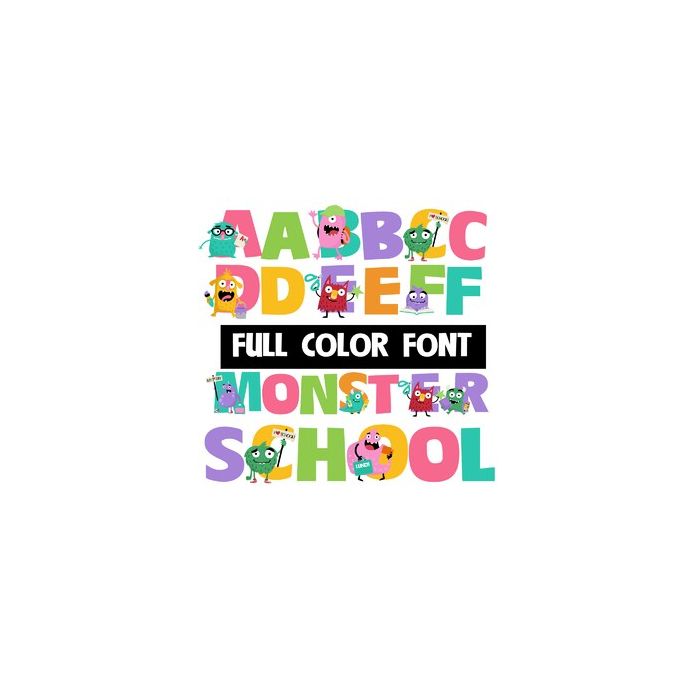
This brightly colored full-color font features blocky letters and a monsters going to school on the uppercase. This font works best for titles, displays, posters and more. Please note color fonts will show as black in non compatible programs. This font type is compatible with Silhouette Studio